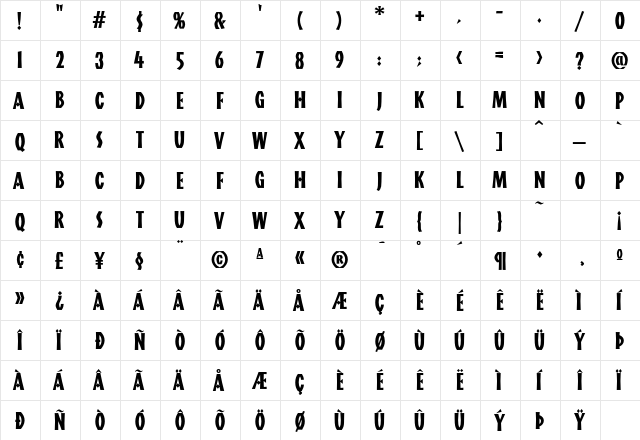
Aardvark FB Regular
Aardvark FB is a composed and adaptable typeface that performs quietly and consistently across a wide range of design contexts.
Pro Tip: Pair Aardvark FB with a font of contrasting weight or personality to build a more expressive typographic hierarchy.